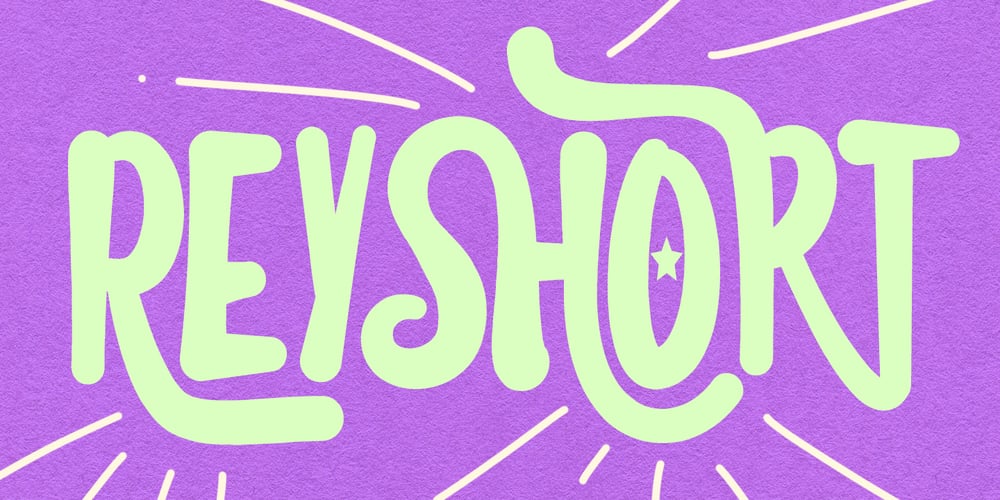
MC Reyshort Font Family was designed by Gilang Maulana and published by Maulana Creative. MC Reyshort contains 1 styles and family package options. Reyshort stylish handmade brush display font, fun character with alternates and ligatures. To give you an extra creative work. Reyshort stylish handmade brush display font support multilingual language.Many Thanks,Maulana Creative